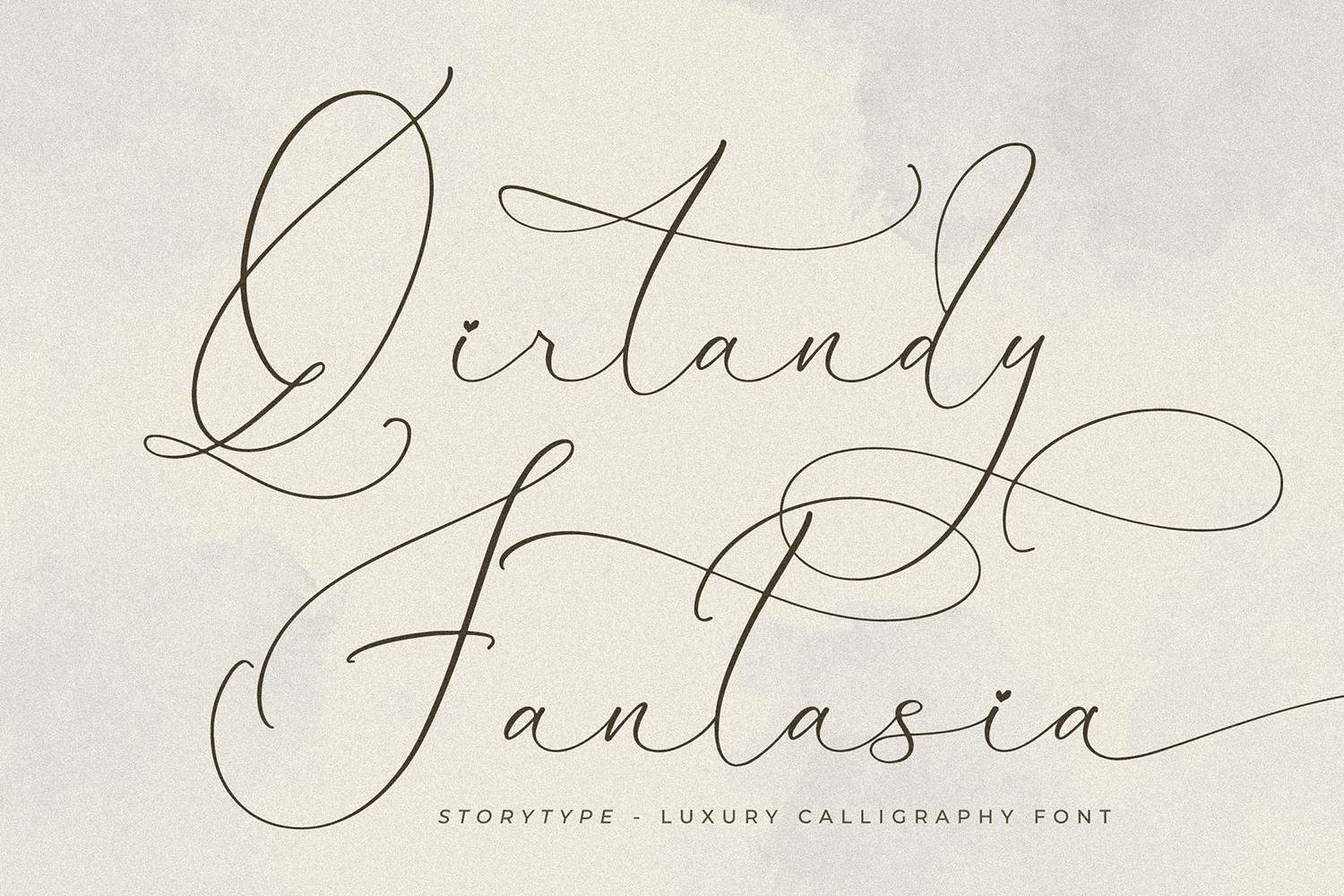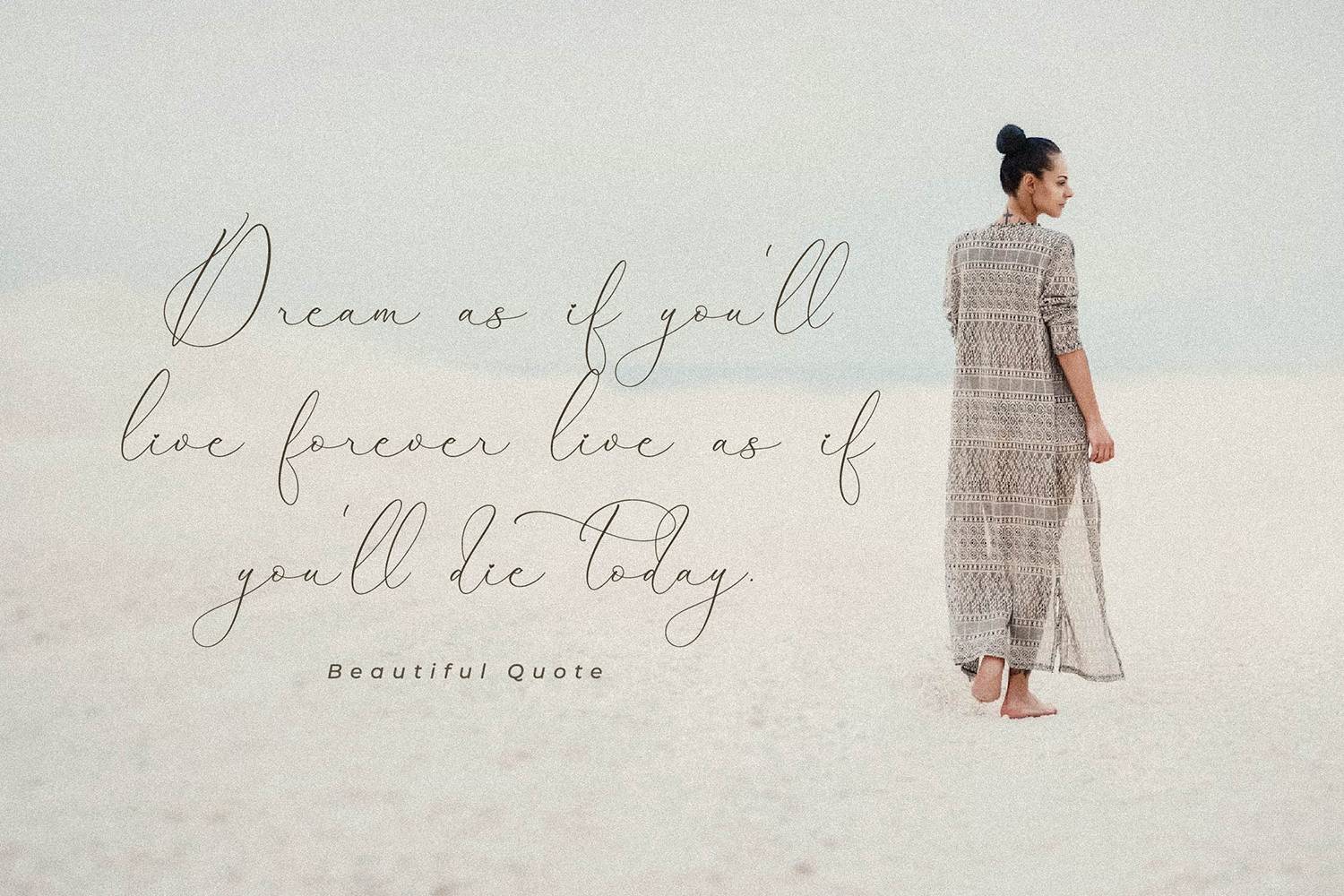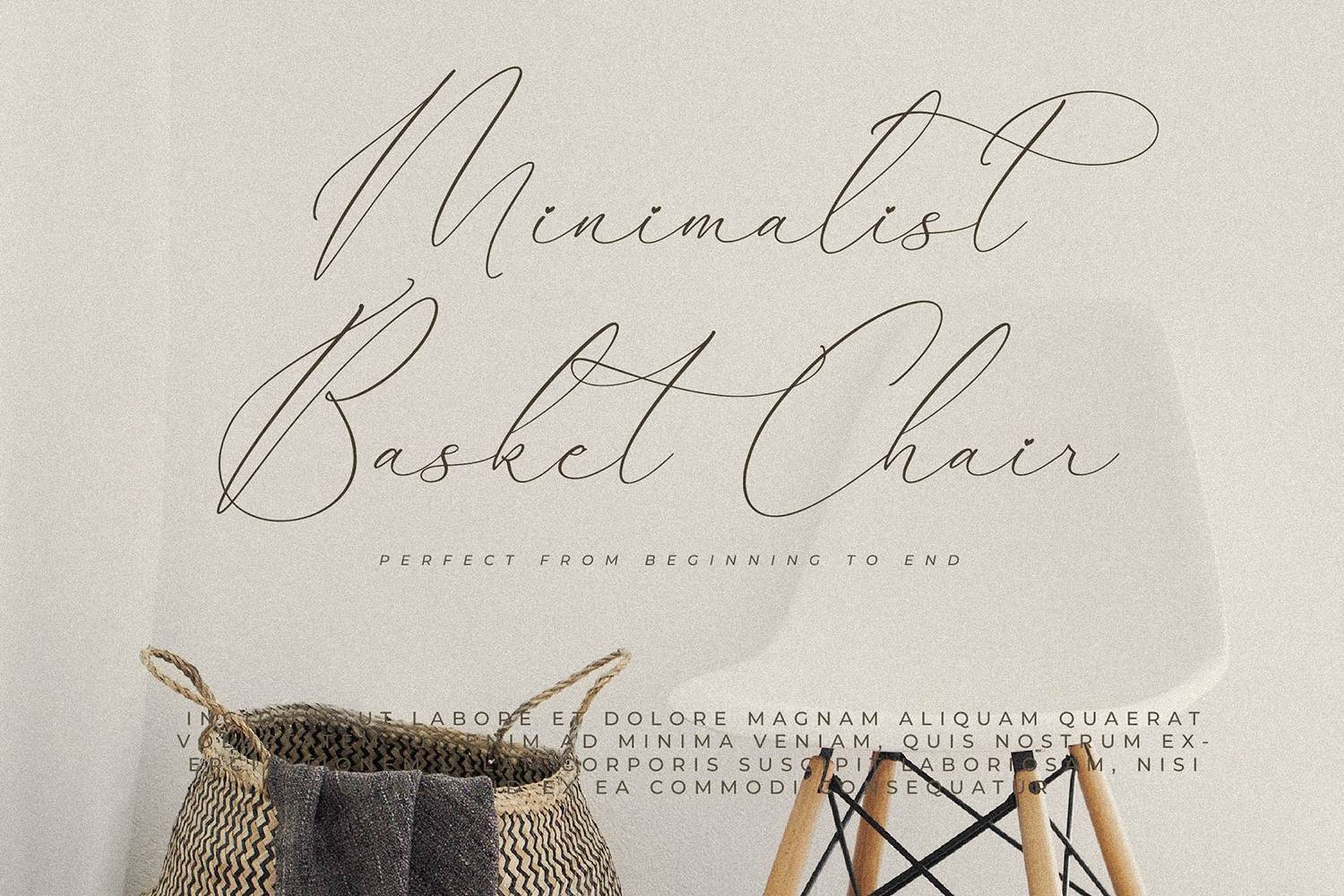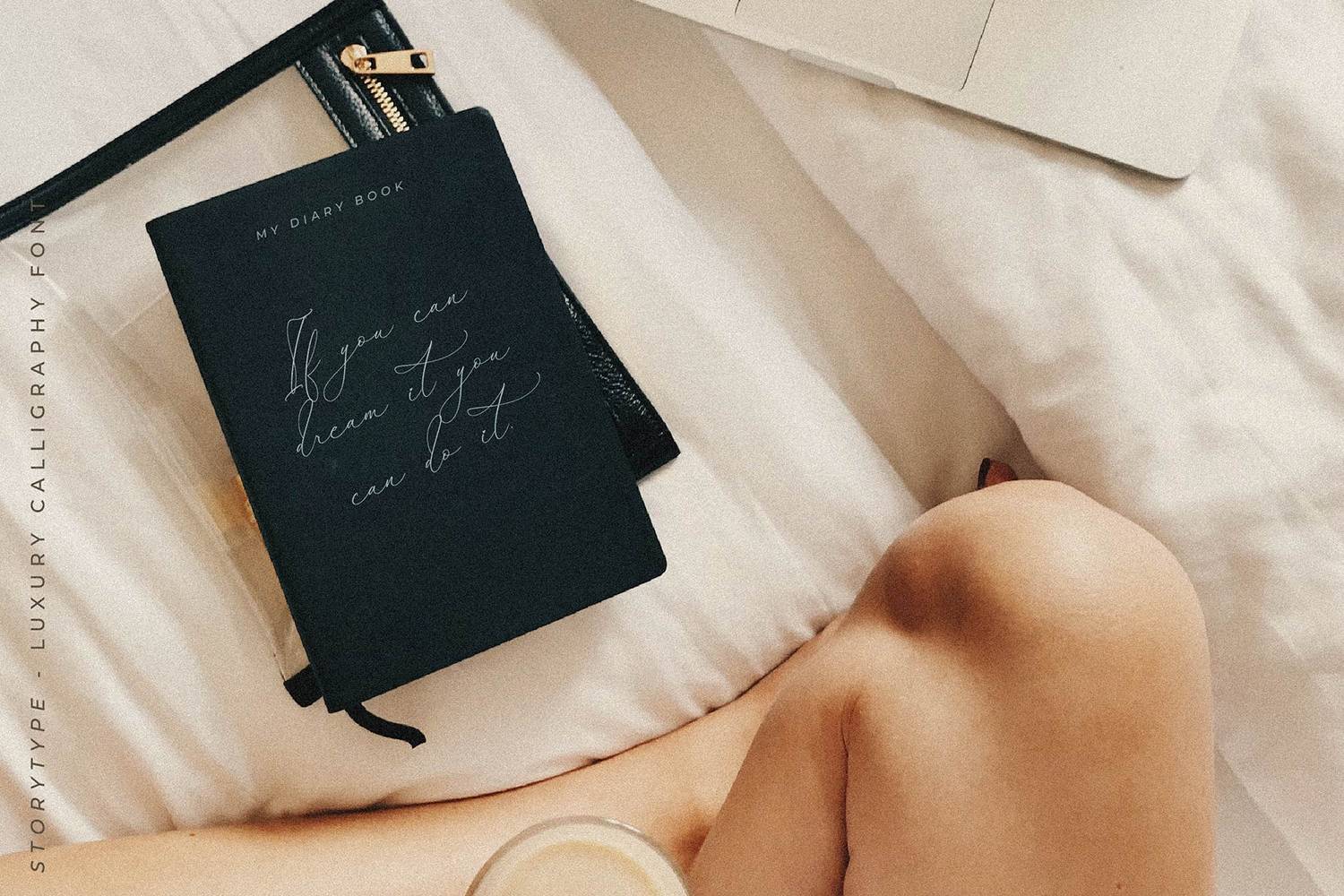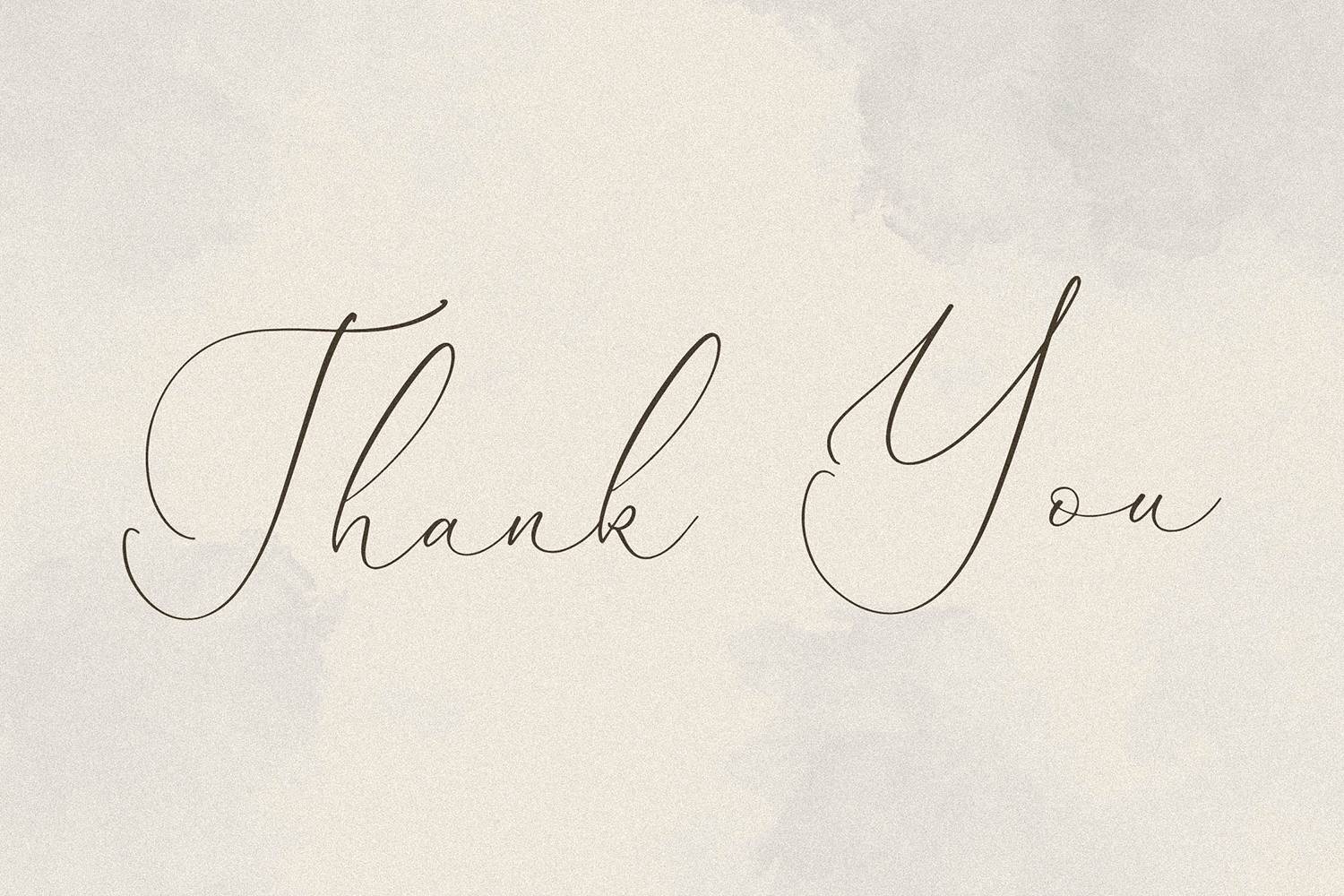
Qirtandy Fantasia is an elegant, delicate script font characterized by its fine, flowing strokes and graceful cursive forms. With a light weight, high contrast, and ornamental swashes, it conveys a sophisticated, romantic vibe ideal for wedding invitations, luxury branding, and artistic projects. Its airy, handwritten style works beautifully for decorative headlines or delicate accents where refinement and softness are desired.
Qirtandy Fantasia Font
About Qirtandy Fantasia Font